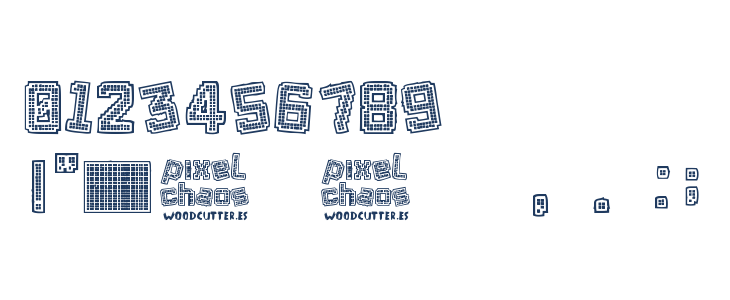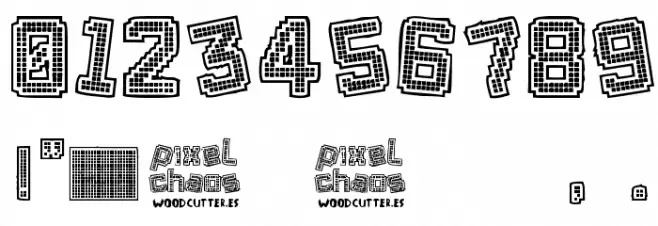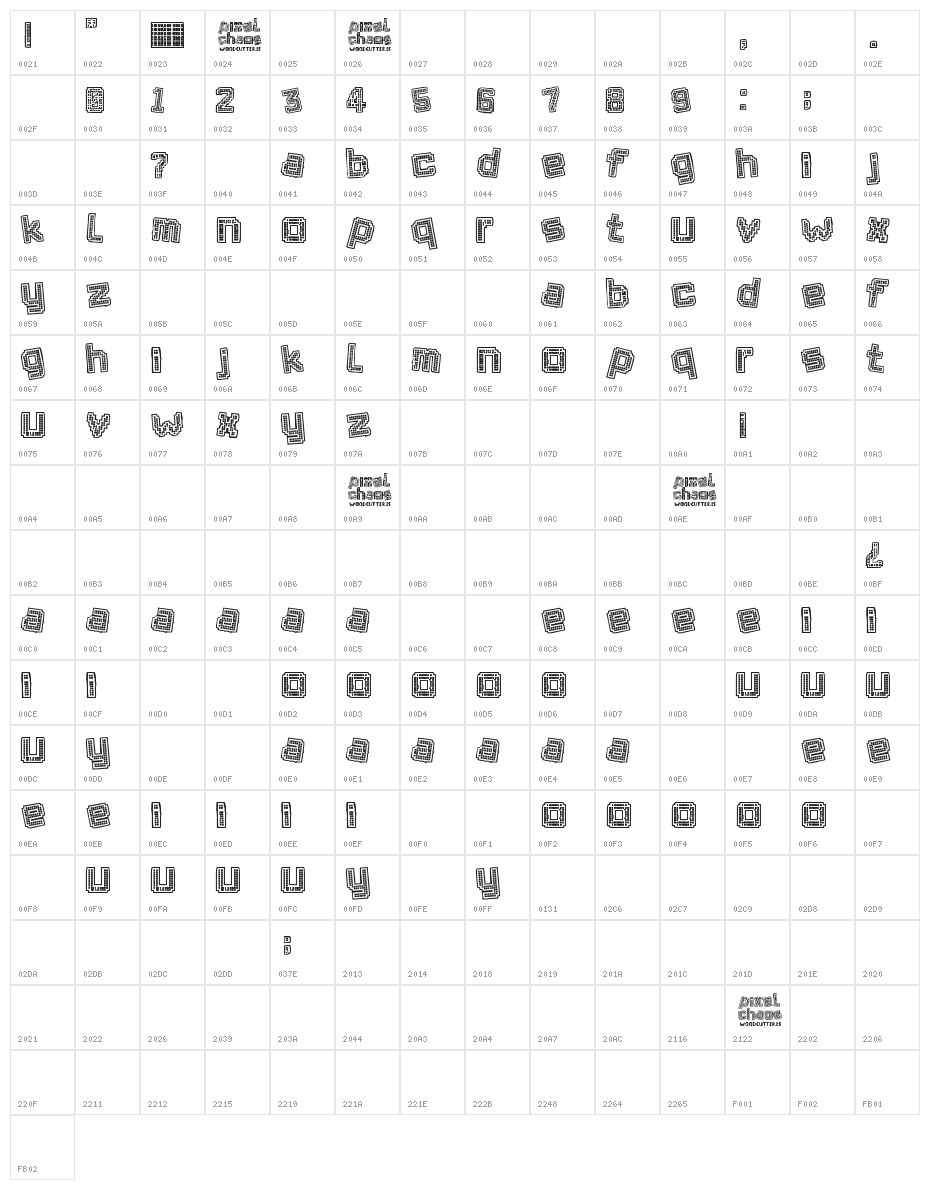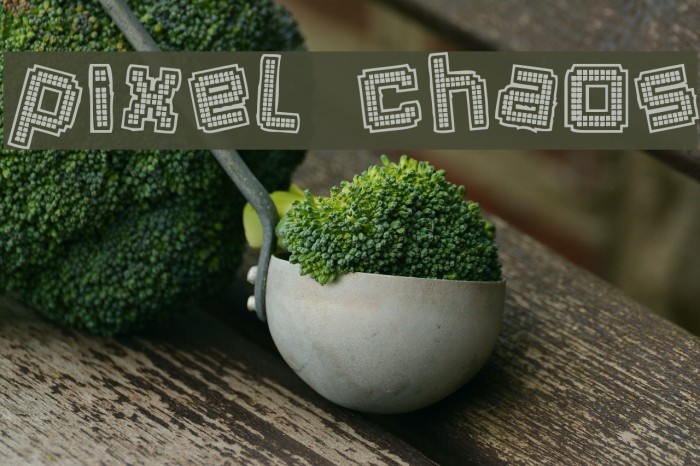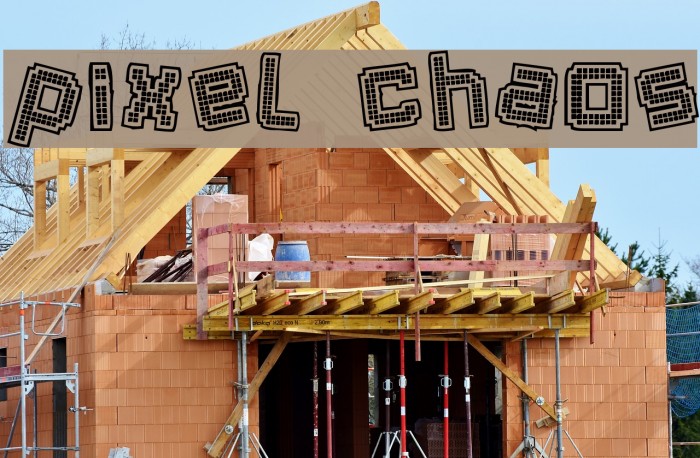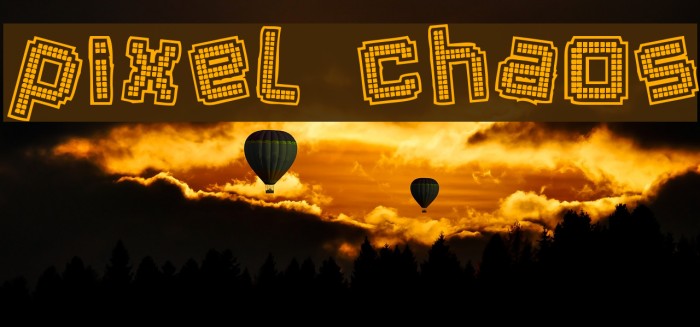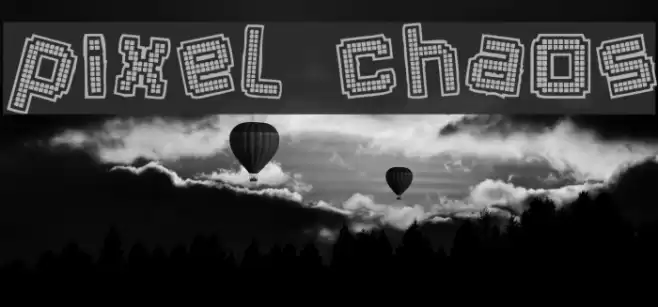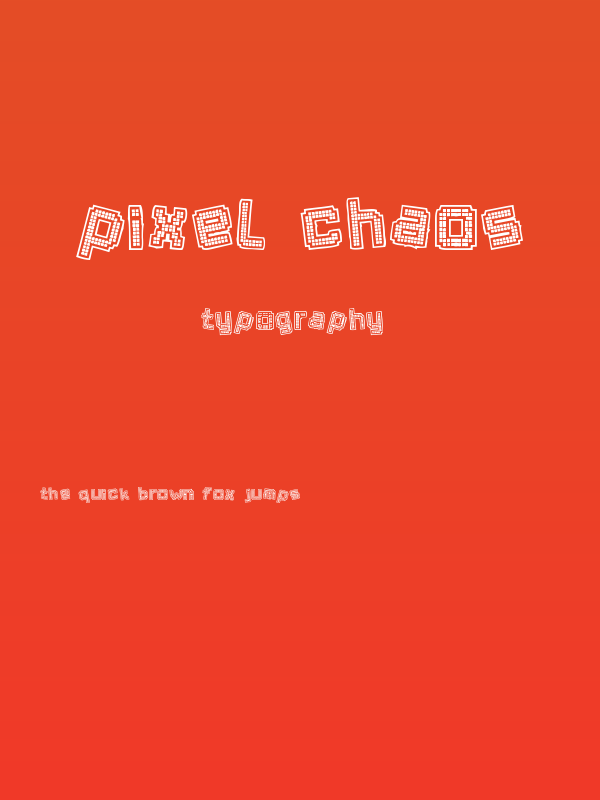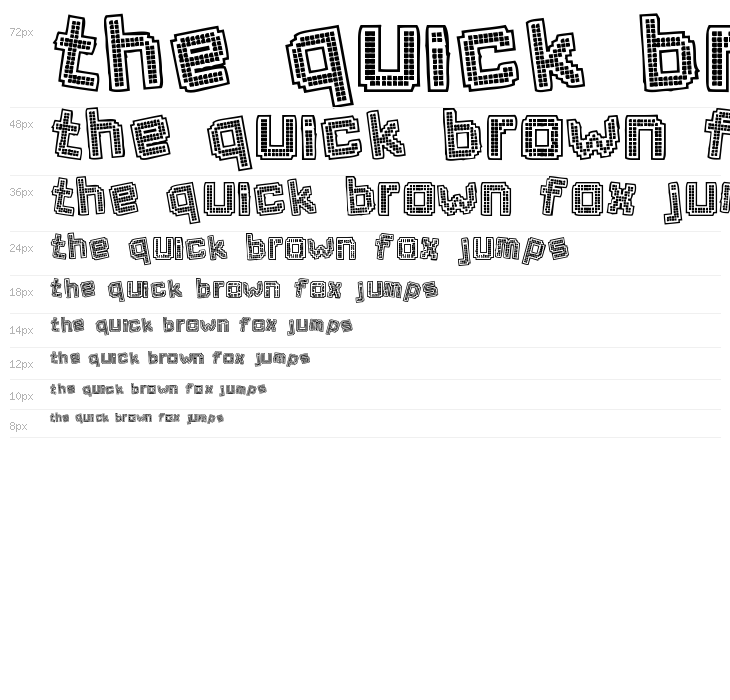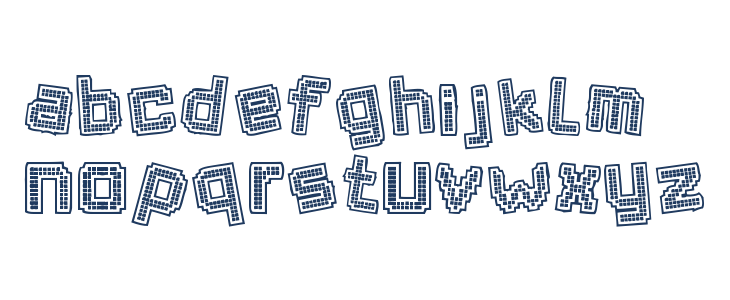
Pixel Chaos Font
Pixel Chaos Description
This font features a unique pixelated design, reminiscent of retro video game graphics. Each character is constructed from a grid of small squares, creating a bold and eye-catching appearance. The letters are outlined with a thick border, enhancing their visibility and adding a playful, digital aesthetic. The font maintains a consistent structure across uppercase, lowercase, and numerical characters, ensuring readability while retaining its distinct style. Special characters follow the same pixelated theme, making it suitable for creative and tech-oriented projects.
| Proposed Projects | Ideal for video game graphics, tech-themed posters, digital art projects, and retro-style branding. |